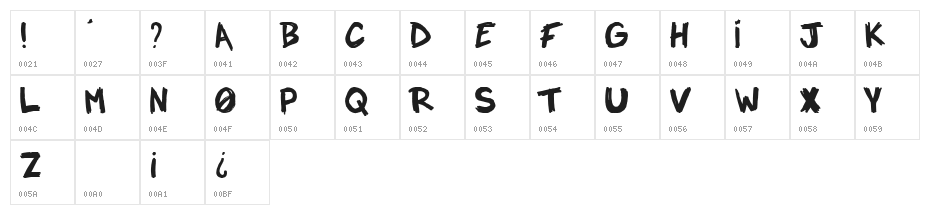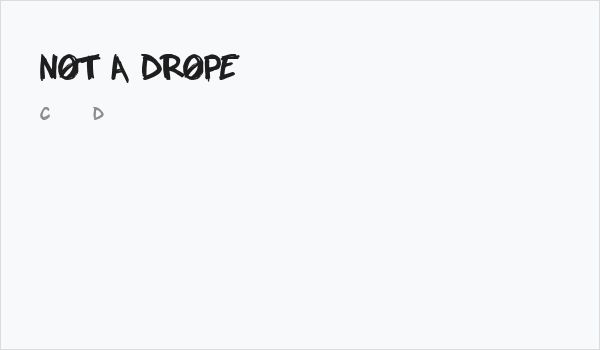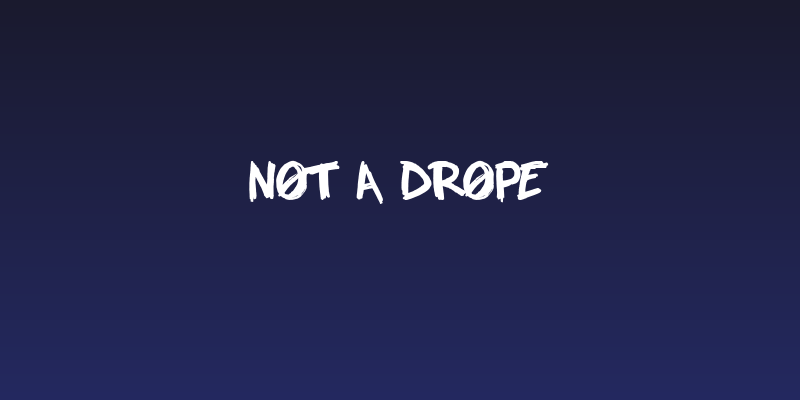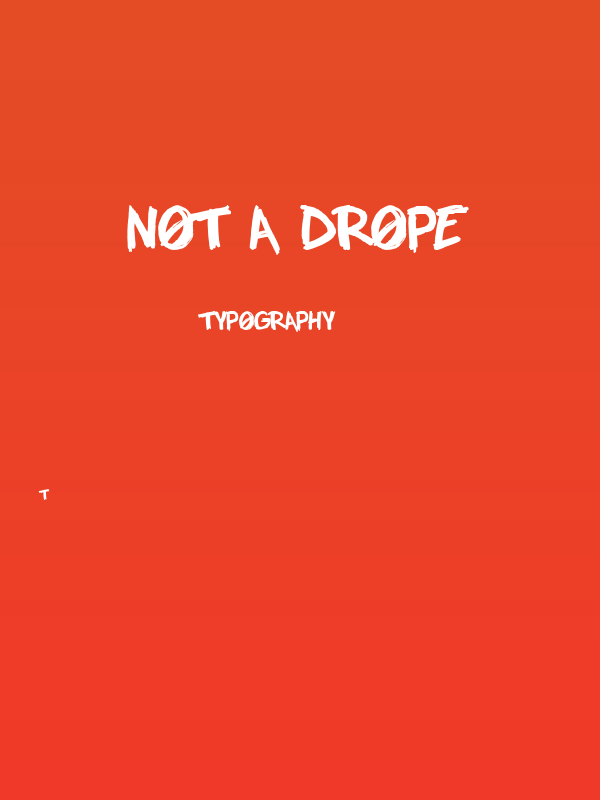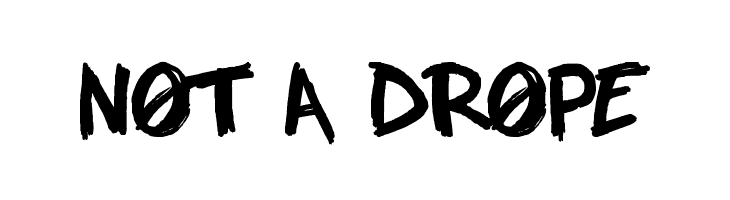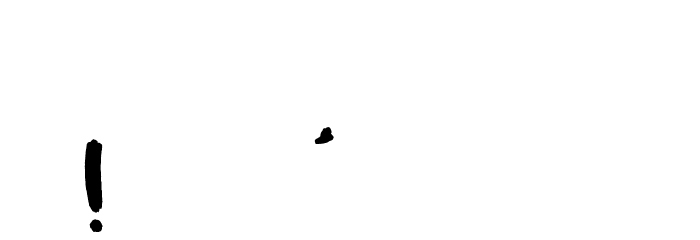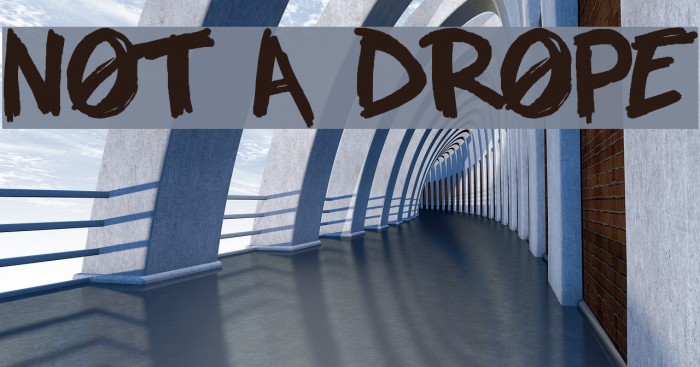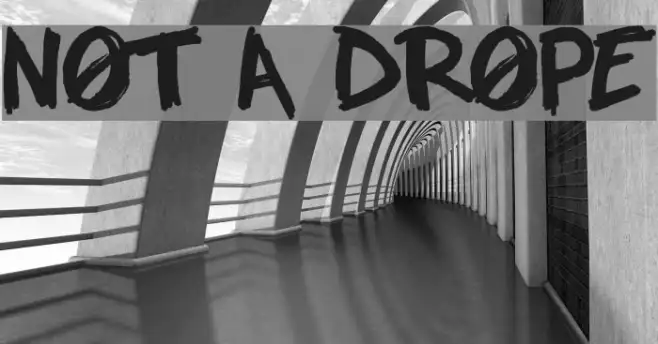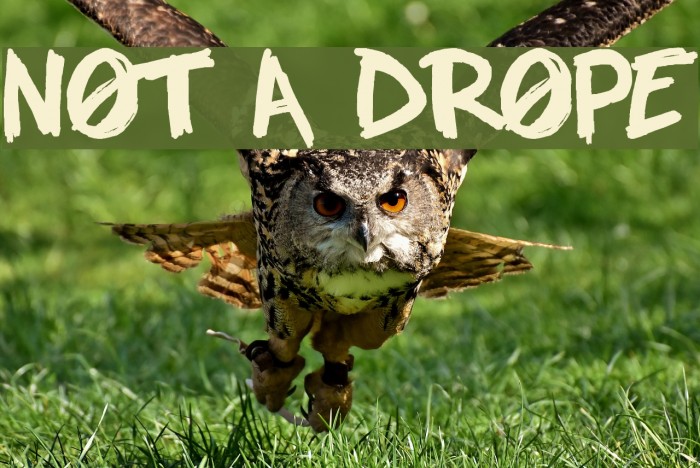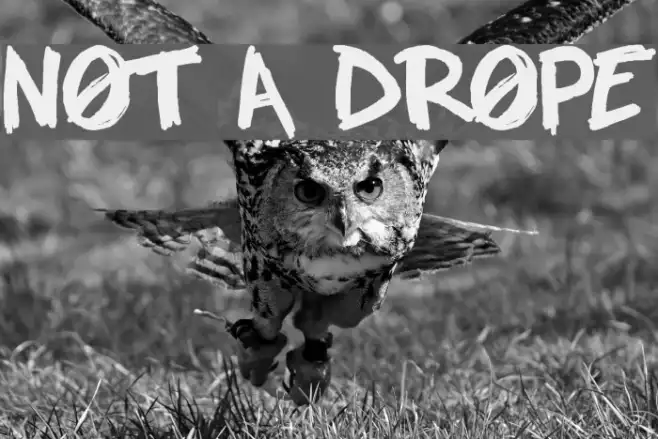
NOT A DROPE Font
NOT A DROPE Description
This font features a bold and expressive style with a hand-drawn appearance. The letters are uppercase and exhibit a playful, artistic flair, characterized by irregular strokes and varying thicknesses. The overall look is dynamic and energetic, making it suitable for creative and informal applications. The font's unique personality is enhanced by its slightly uneven baseline and the organic flow of its characters, which add a sense of movement and spontaneity.
| Proposed Projects | Ideal for posters, comic books, children's book covers, and creative branding projects. |